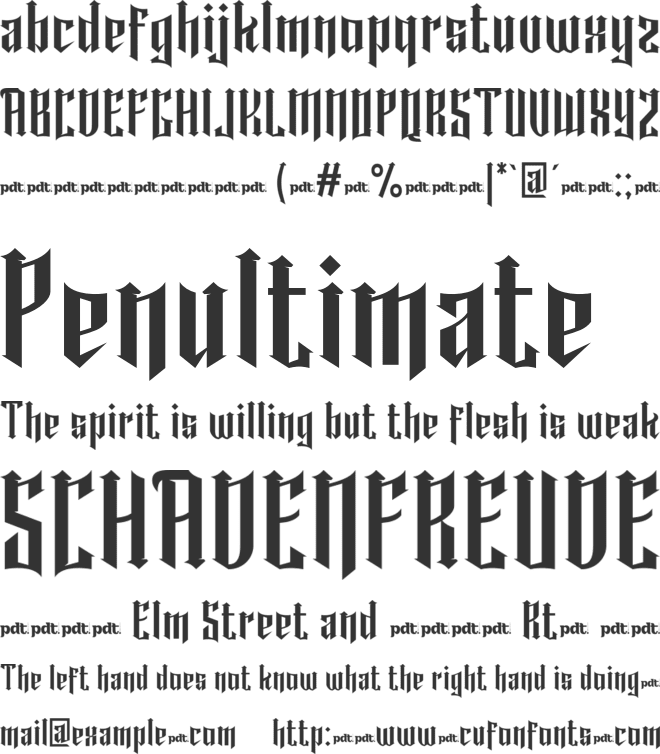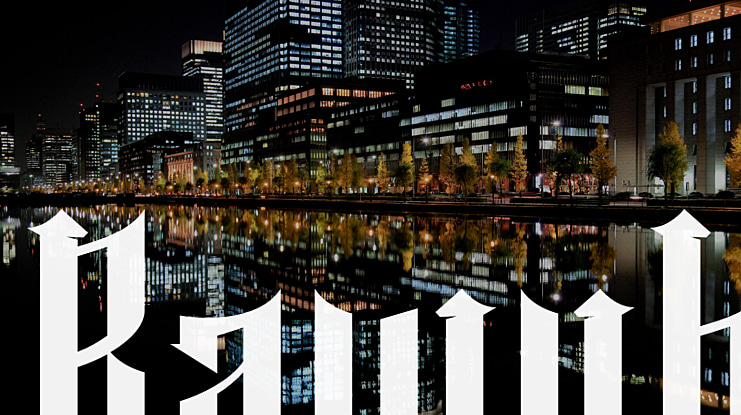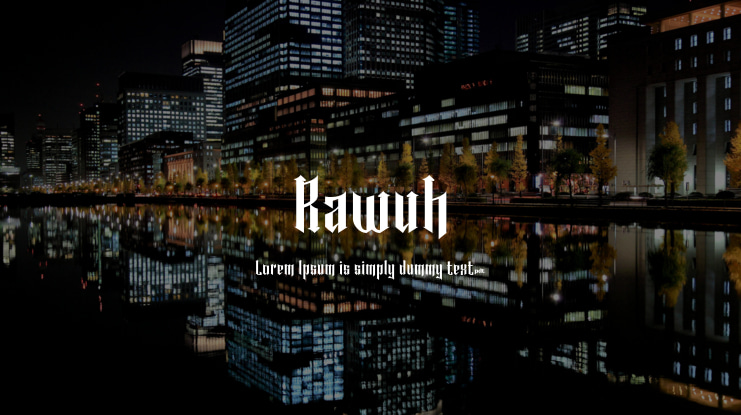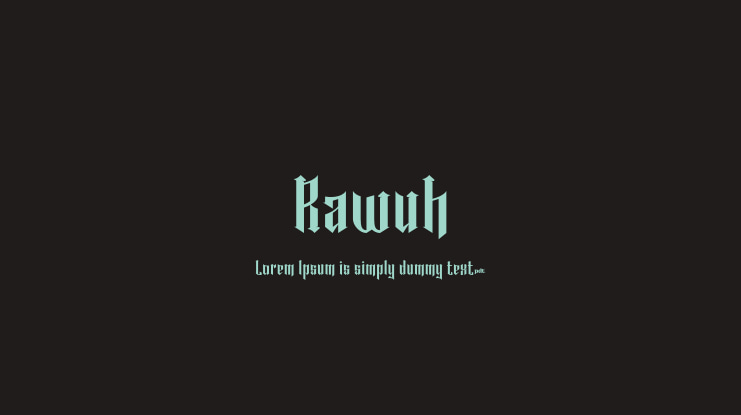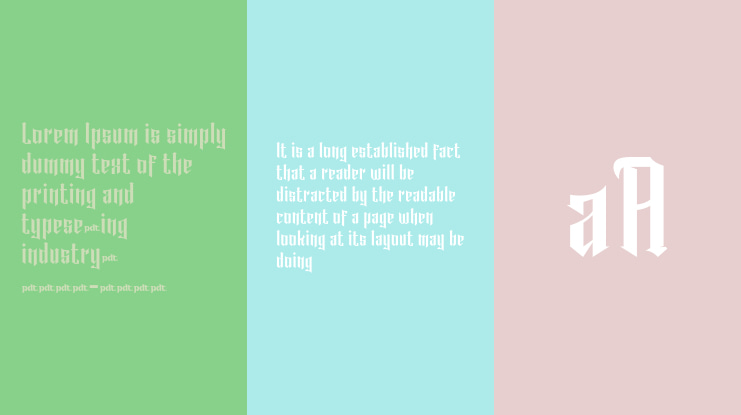
Rawuh Font
Rawuh is a unique gothic blackletter for your designs. If you want to stand out from the crowd and add a touch of elegance, then this is the font you need. The blackletter style works perfectly for any Gothic themed tattoo, label, packaging, branding or project!